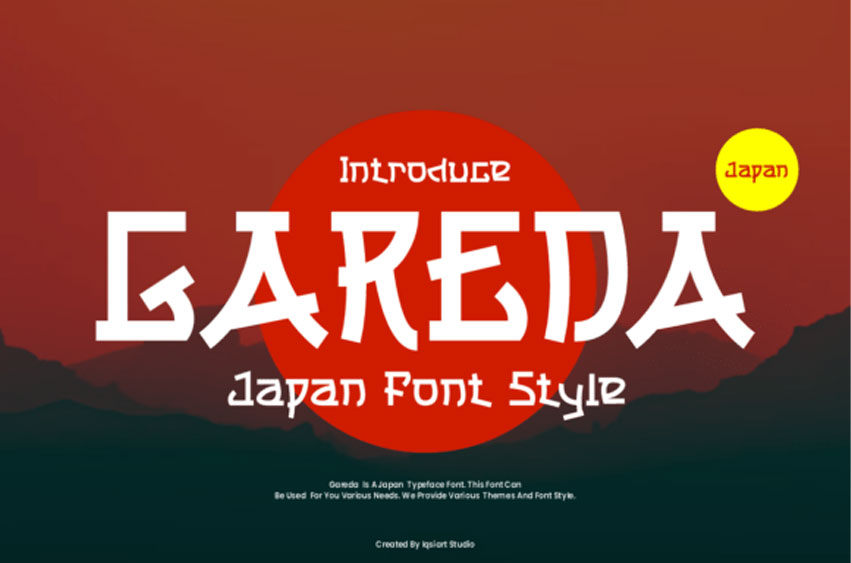
Gareda Font
Gareda Font is a bold Japanese-style display font inspired by traditional brush strokes and angular forms. It brings an East Asian aesthetic to your typography, making it ideal for cultural projects, Asian-themed branding, gaming titles, and dynamic logos. The bold structure and sharp design give it an impactful look.
Whether you’re designing packaging, posters, or titles with an Eastern flair, Garena adds authenticity and strength to your design.